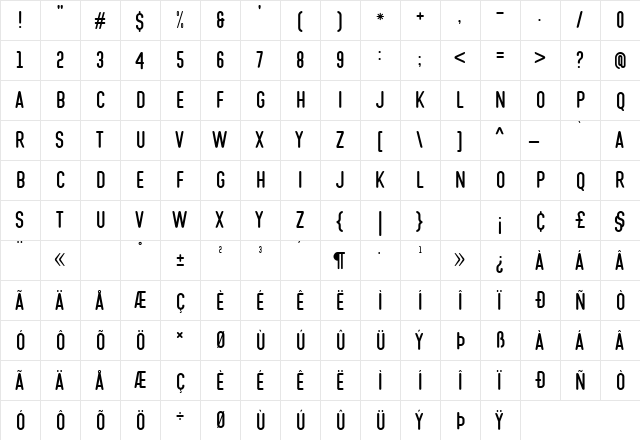
CHUTEROLK Free Rounded Regular
| Foundry | Namara Creative Studio |
| Designer | Toni Setiawan | Namara Creative Studio |
Design Context for CHUTEROLK Free Rounded Typeface
CHUTEROLK Free Rounded softens its letterforms with rounded terminals, giving it an approachable, friendly quality that works well in consumer-facing and digital contexts.
Well-suited to UI design, mobile interfaces, and any brand that wants approachability without sacrificing clarity.
Font Pairing: Pairs well with a rounded or humanist sans for body copy, maintaining the friendly tone without relying on CHUTEROLK Free Rounded to carry extended reading.
Pro Tip: Use CHUTEROLK Free Rounded for UI elements, app interfaces, and anywhere a friendly, approachable tone needs to be maintained without sacrificing clarity.